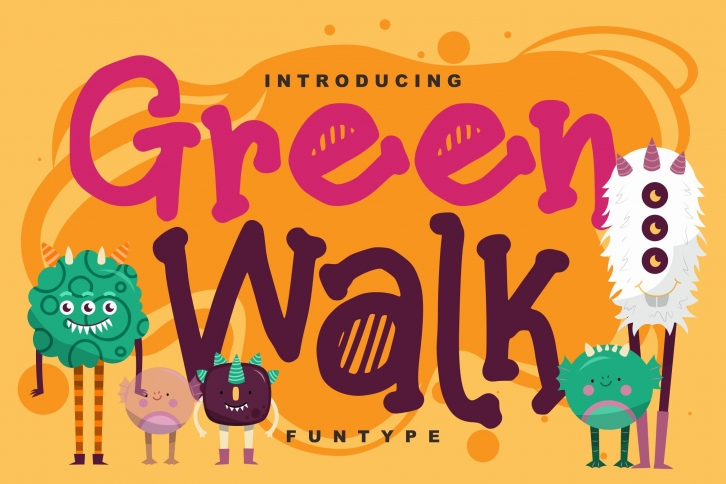
Green walk | Decorative Fun Type Font with a kids style, So beautiful on invitation like greeting cards, branding materials, business cards, quotes, posters, and more!
- Alternates and Ligatures
- Fonts include Multilingual Support